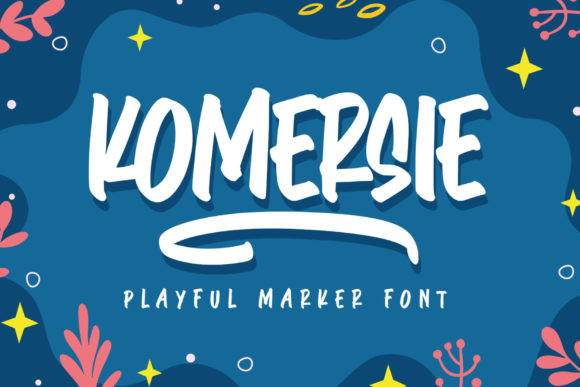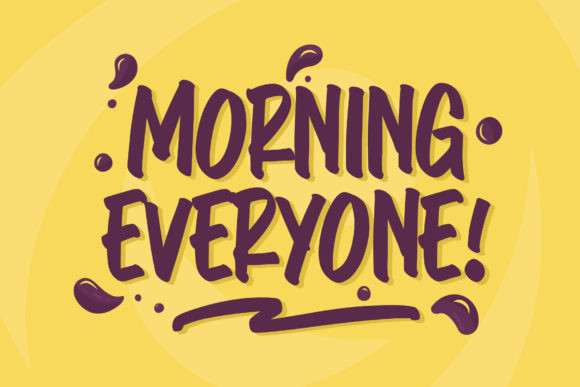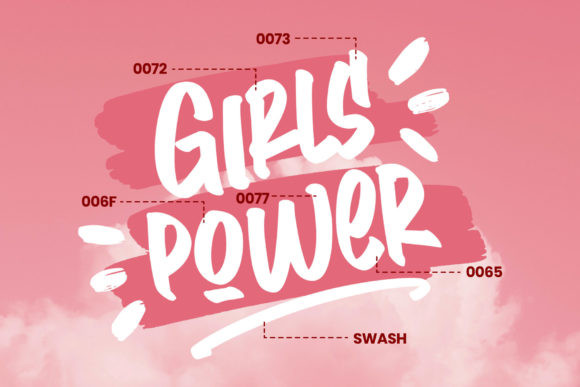
Komersie Font
Komersie is a paint brushed script font with a relaxed theme, featuring a lovely style. No matter the topic, this font will be an incredible asset to your fonts’ library, as it has the potential to elevate any creation.